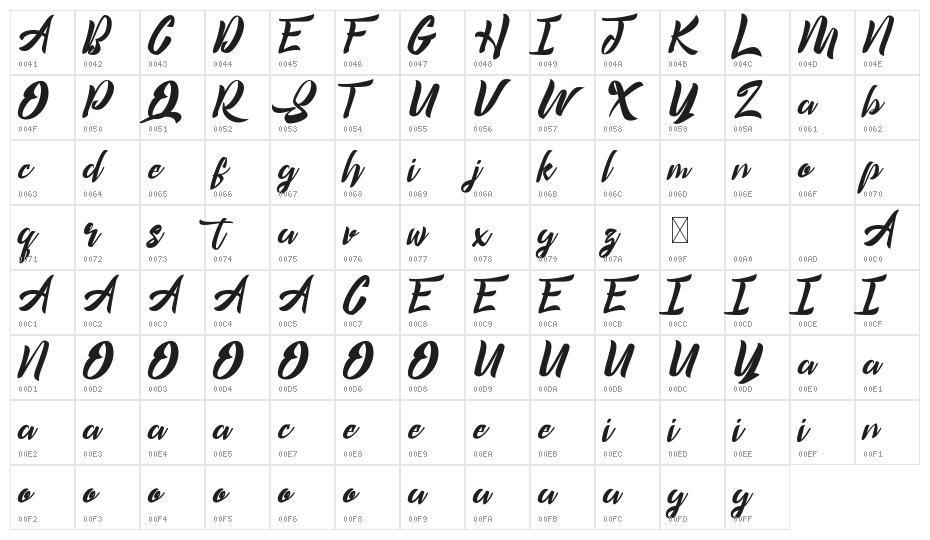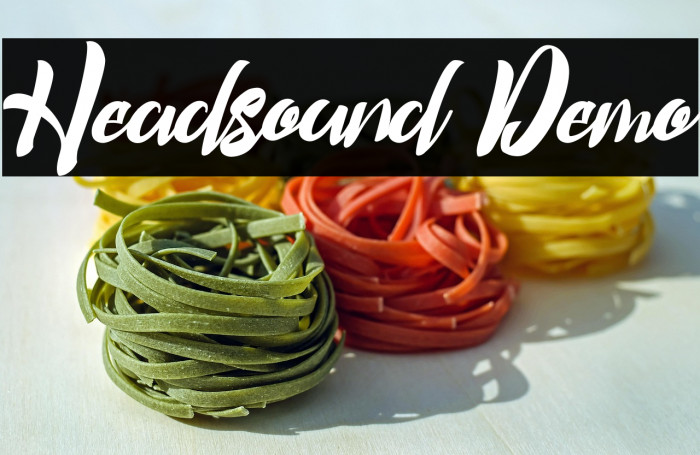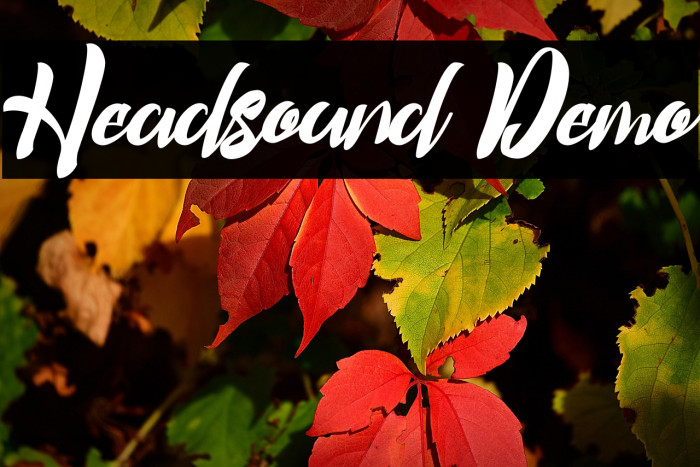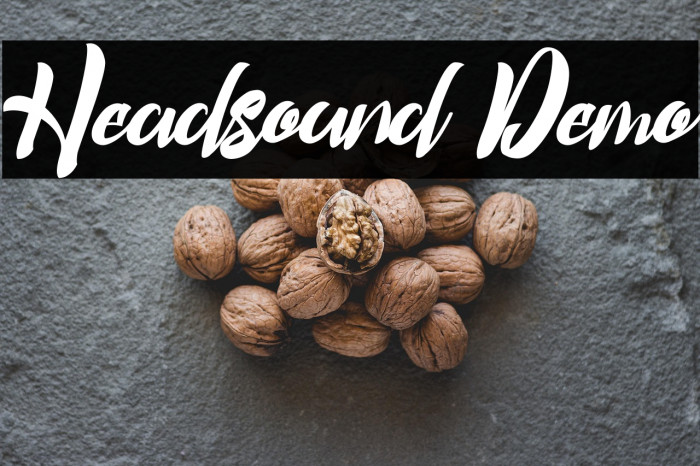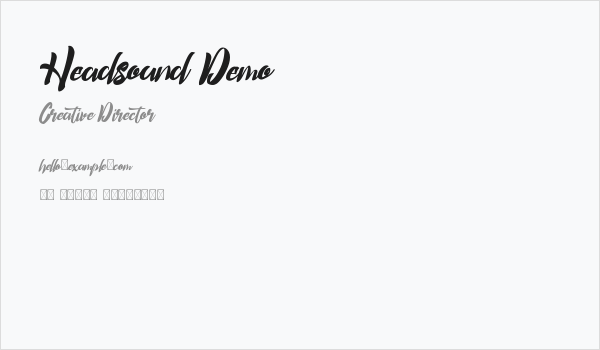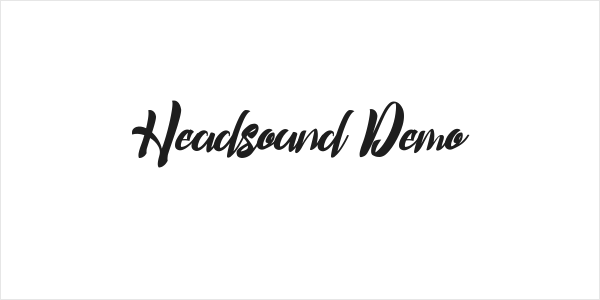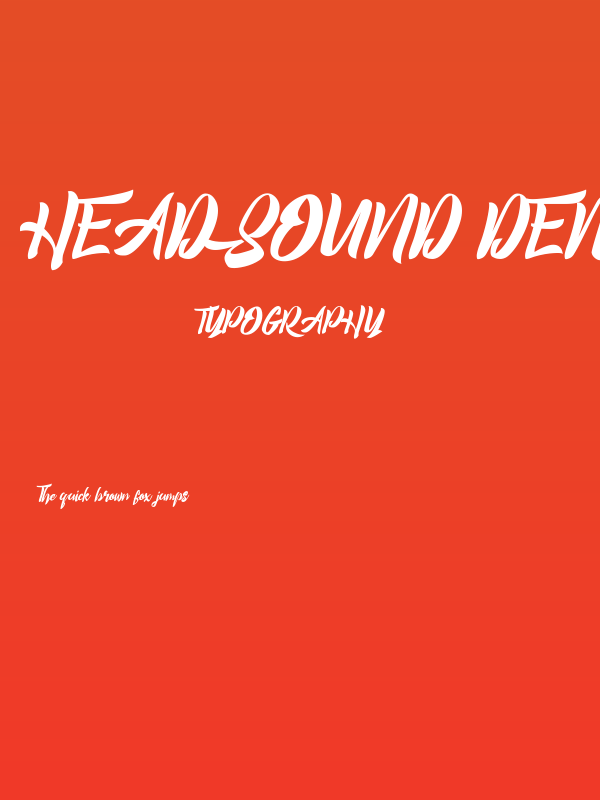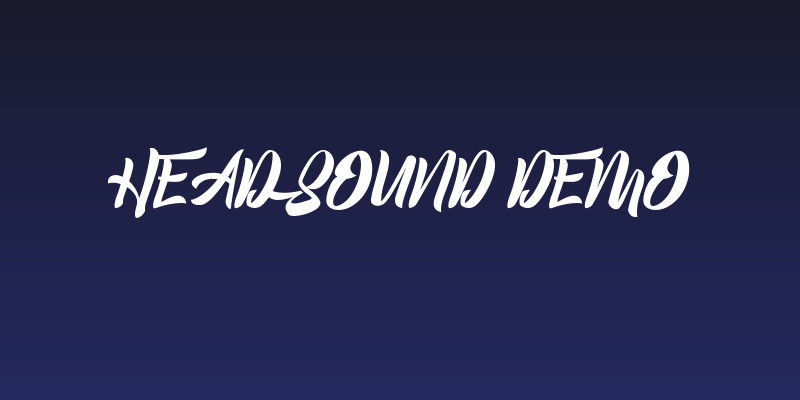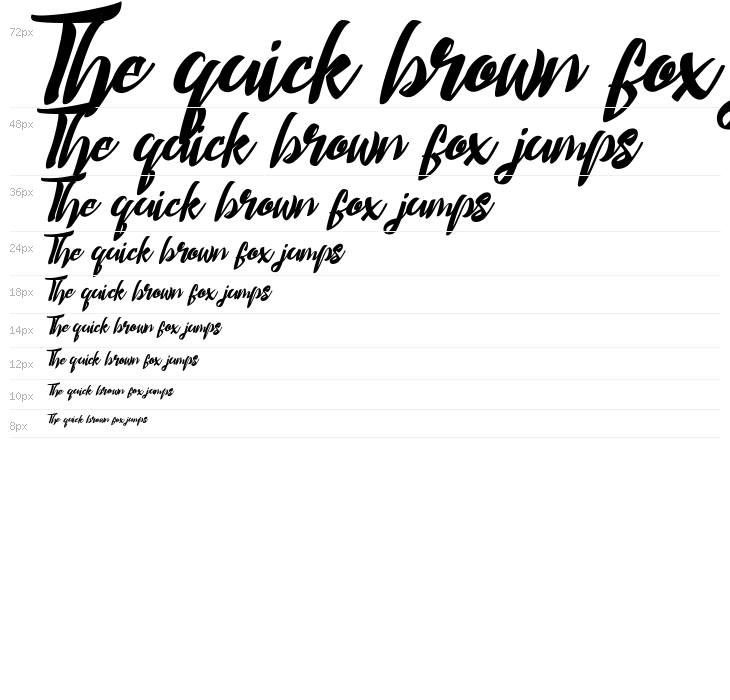
Headsound Demo Font
Headsound Demo Description
This font exudes a bold and dynamic script style, characterized by its flowing, cursive letterforms that convey a sense of movement and energy. The strokes are thick and expressive, with a high contrast between the thick and thin parts of each character, giving it a dramatic flair. The uppercase letters are particularly striking, with sweeping curves and loops that add a touch of elegance and sophistication. The lowercase letters maintain the same fluidity, ensuring a cohesive look across the text. This font is perfect for making a statement, whether in headlines, logos, or branding materials. Its artistic and modern appeal makes it suitable for creative projects that require a touch of personality and flair.
| Proposed Projects | Ideal for branding, logos, headlines, and creative design projects requiring a bold statement. |